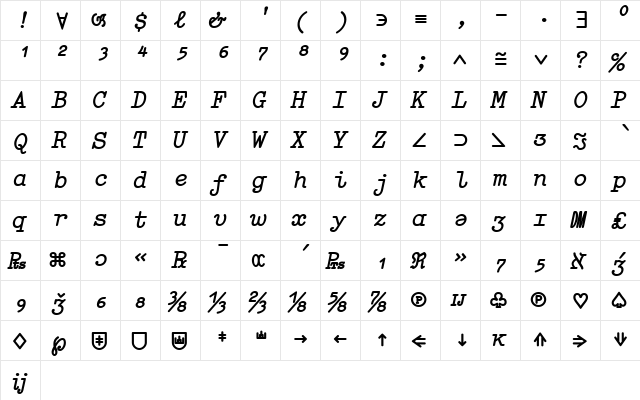
Elementa Symbol ItalicBold Font Preview
| Style | ItalicBold |
| Foundry | Mindaugas Strockis, . Published by FontShop International. FontFont Release |
Design Context for Elementa Symbol Typeface
Elementa Symbol takes a measured approach to typography — its balanced proportions and neutral character make it a reliable workhorse for both digital and print work. The dynamic lean of this cut emphasises speed and emphasis in any layout. Its bold stroke weight gives it real presence on the page.